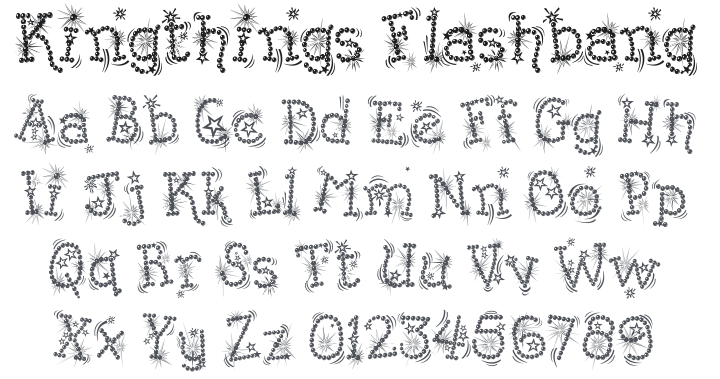
Kingthings Flashbang Font
About Kingthings Flashbang
This font is based on Kingthings Whizzbang - I enjoyed making it so much that I only occasionally had time to wonder why The Font Creator Program was struggling - it's about ten times the size of a 'normal' font. This is because fonts are made up of individual bits called glyphs - there are just rather a lot of them...